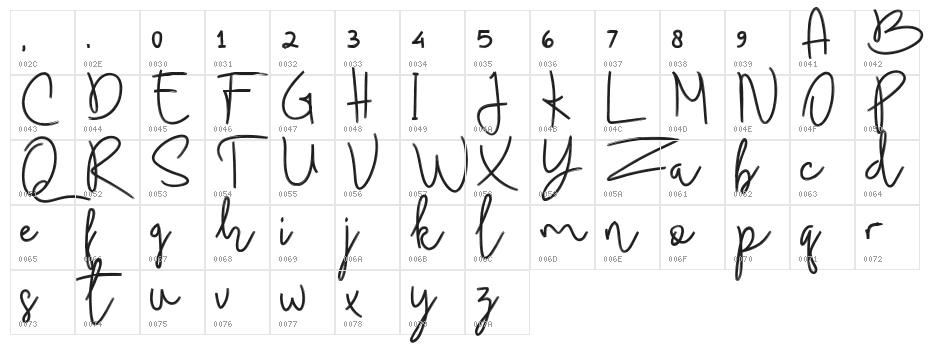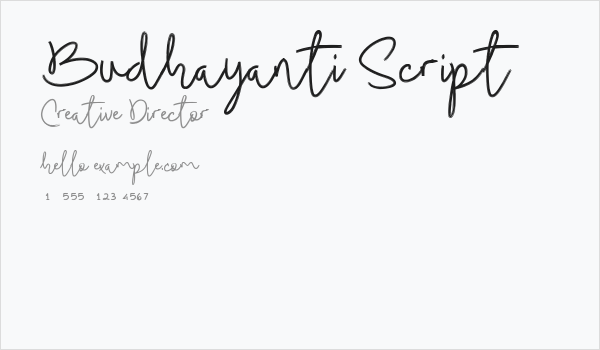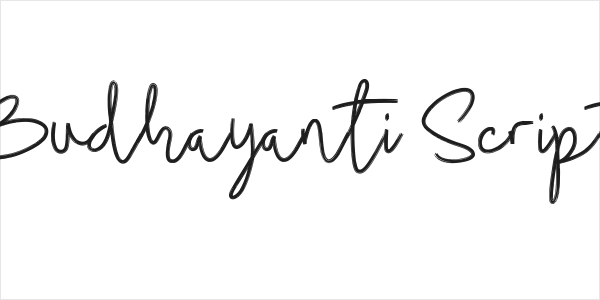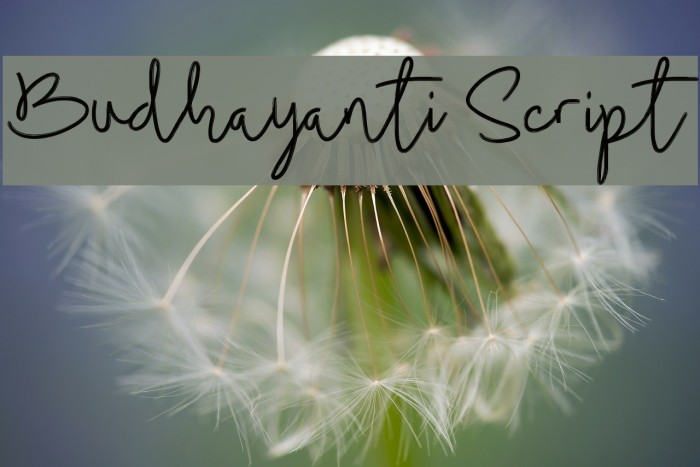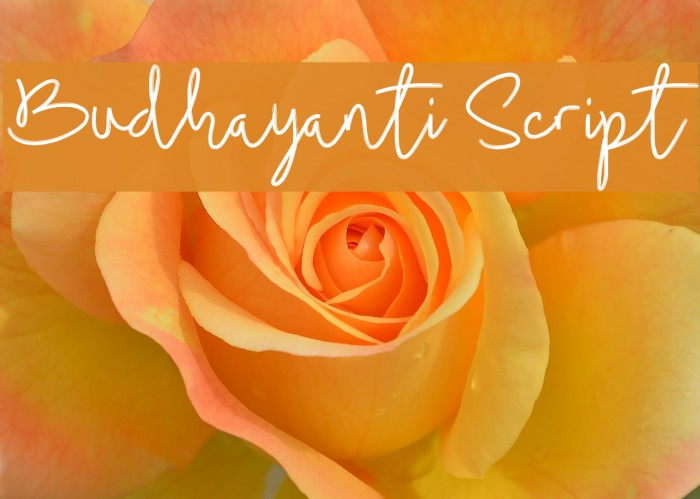
Budhayanti Script Font
Budhayanti Script Description
This font exhibits a lively and expressive handwritten style, characterized by its fluid and dynamic strokes. The uppercase letters are bold and slightly elongated, giving a sense of elegance and flair. The lowercase letters maintain a consistent flow, with some letters featuring unique loops and curves that add to the font's charm. The numerals are clear and distinct, maintaining the playful yet sophisticated aesthetic. Special characters are seamlessly integrated, enhancing the font's versatility. Overall, this font exudes a sense of creativity and personal touch, making it ideal for projects that require a personal or artistic feel.
| Proposed Projects | Ideal for wedding invitations, greeting cards, personal branding, and artistic projects. |